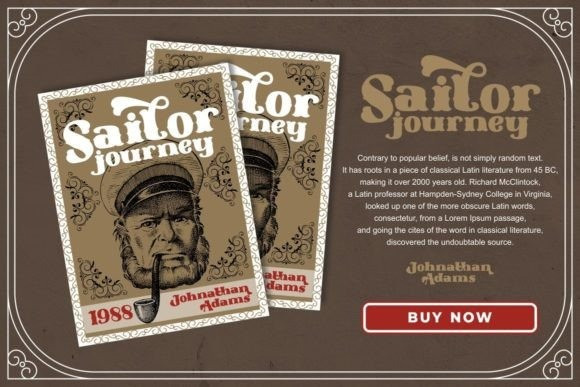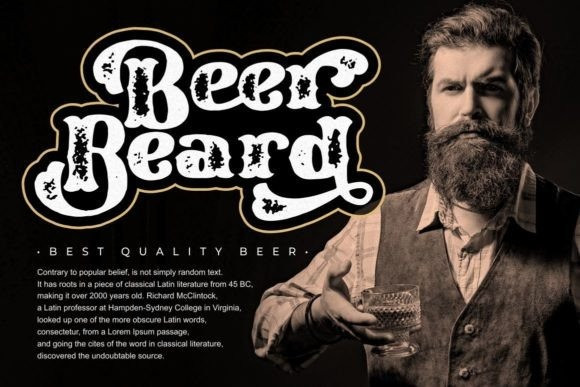
Western Cowboy Font
Western Cowboy is a retro and western-looking display font. This bold, unique, and vintage font can easily become your favorite. It can be used for books, magazine covers, social media posts, invitations, and so much more! So add this to your creations and take your designs to the next level! Western Cowboy is PUA encoded which means you can access all the glyphs and ligatures with ease!